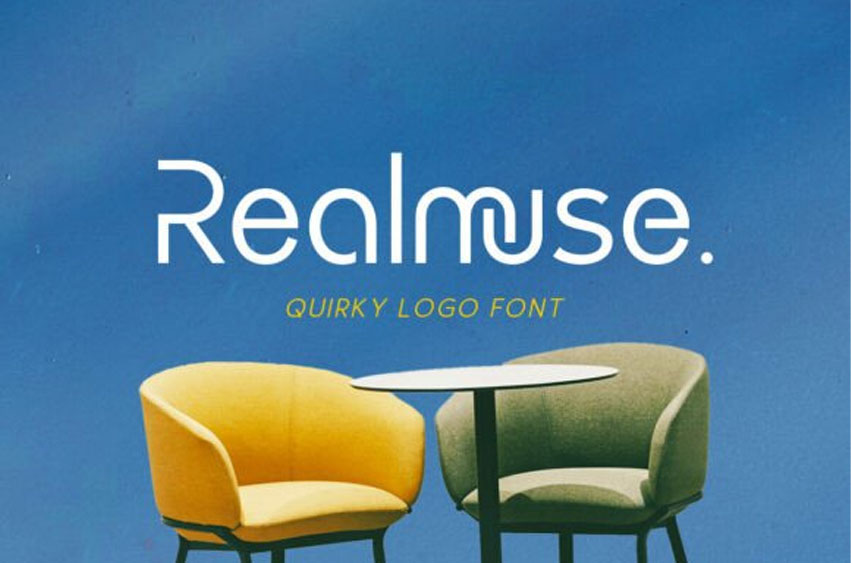
Realmuse Font
Realmuse Font is a distinctive logo typeface inspired by sans serif styles. With its unique, rounded, and minimalist design, this font helps your logo stand out in a modern way.
It features stylish ligatures and stencil alternates that enhance the overall appeal of your project. You can use this font for branding, logos, and various design applications. Additionally, it supports multiple languages.